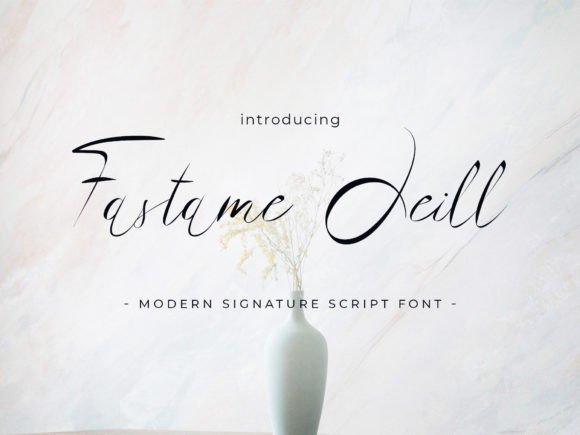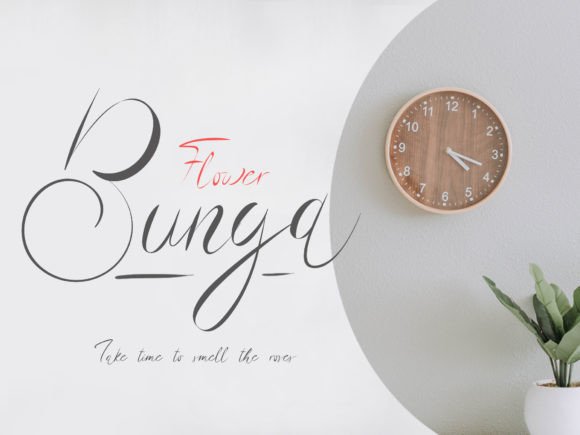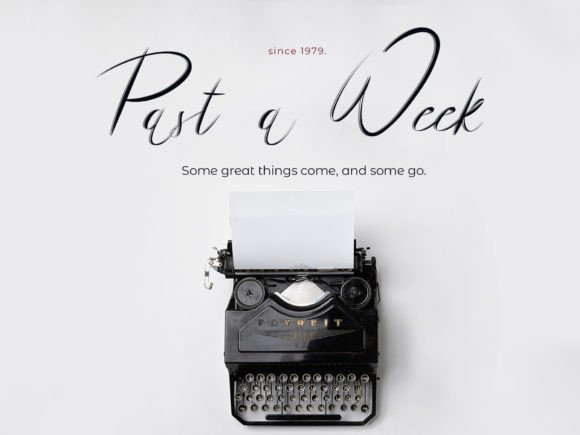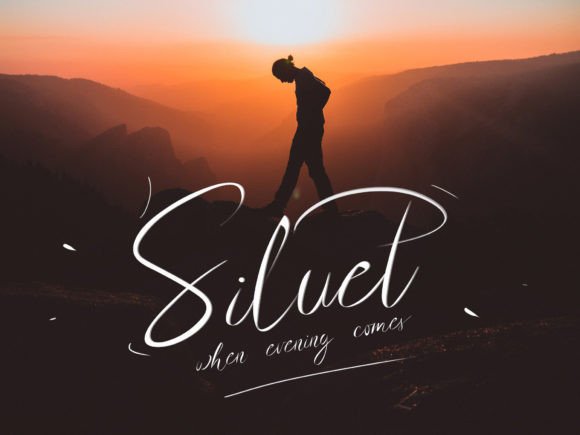
Fastame Jeill
About Fastame Jeill
Fastame Jeill feels equally charming and elegant. It looks stunning on wedding invitations, thank you cards, quotes, greeting cards, logos, business cards, and every other design which needs a handwritten touch.